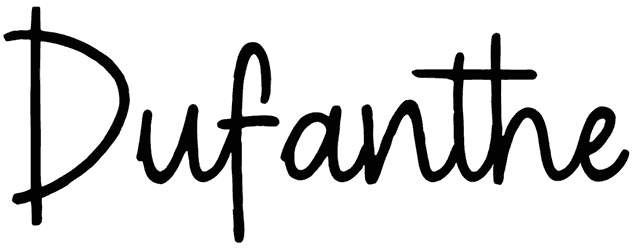
Handmade Font
Are you into attractive romantic designs with beautiful twisty words? As a handwritten font, Handmade, with its sweet and chic letters, is able to bring the same mood to your design. This script font is so close to the full cover of characters and can be harmonized with many items, such as greeting cards, planners, logos, magazines, and the like.
Designed by: Inermedia Studio